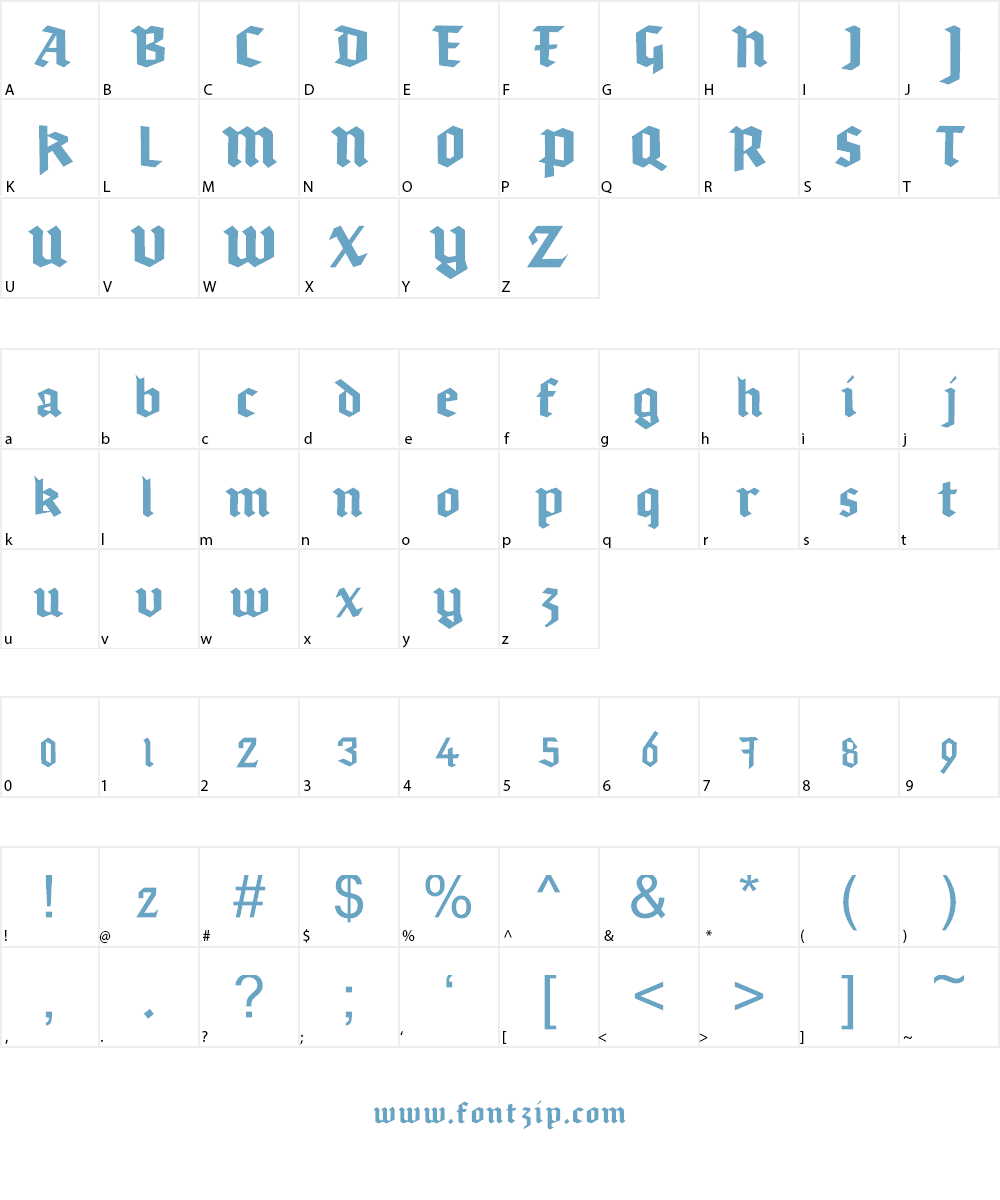
Pretty much self-explained, a medieval-ish, gothic font, simplified as much as possible. Only straight lines used. It is based loosely on the font used at the end credits, in the smurf movie (2011).